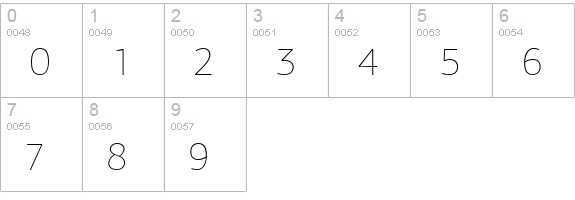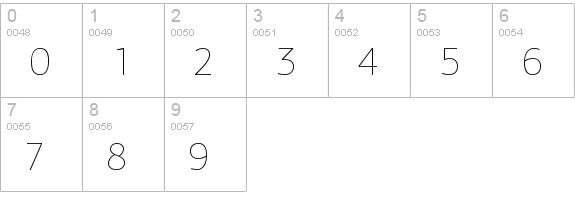
PFAgoraSansPro-XThin is a sleek and modern typeface that exudes elegance and sophistication. With its ultra-thin weight, this font is perfect for creating a refined and minimalist aesthetic in your design projects. The delicate lines and precise geometry of PFAgoraSansPro-XThin make it a versatile choice for a wide range of applications, from editorial design to branding and packaging. What sets PFAgoraSansPro-XThin apart is not only its exquisite design but also the fact that it is available for free download at FontsMarket.com. This means that you can elevate your projects with this premium font without any cost, making it an excellent choice for designers looking to add a touch of luxury to their work without breaking the bank. Whether you're working on a logo, website, or print materials, PFAgoraSansPro-XThin will help you achieve a polished and sophisticated look that is sure to impress. Download this stunning font today and take your designs to the next level with its unmatched elegance and style.